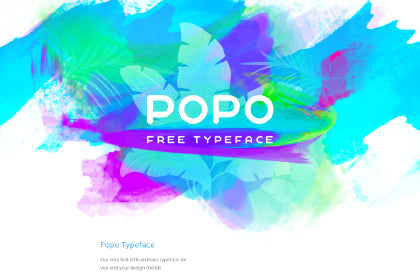
Free POPO Font
Introducing you to the absolutely beautiful free popo font. This is a downloadable font file brought to you by Free Design Resources. This is absolutely fancy font so you can easily make world-class designs.